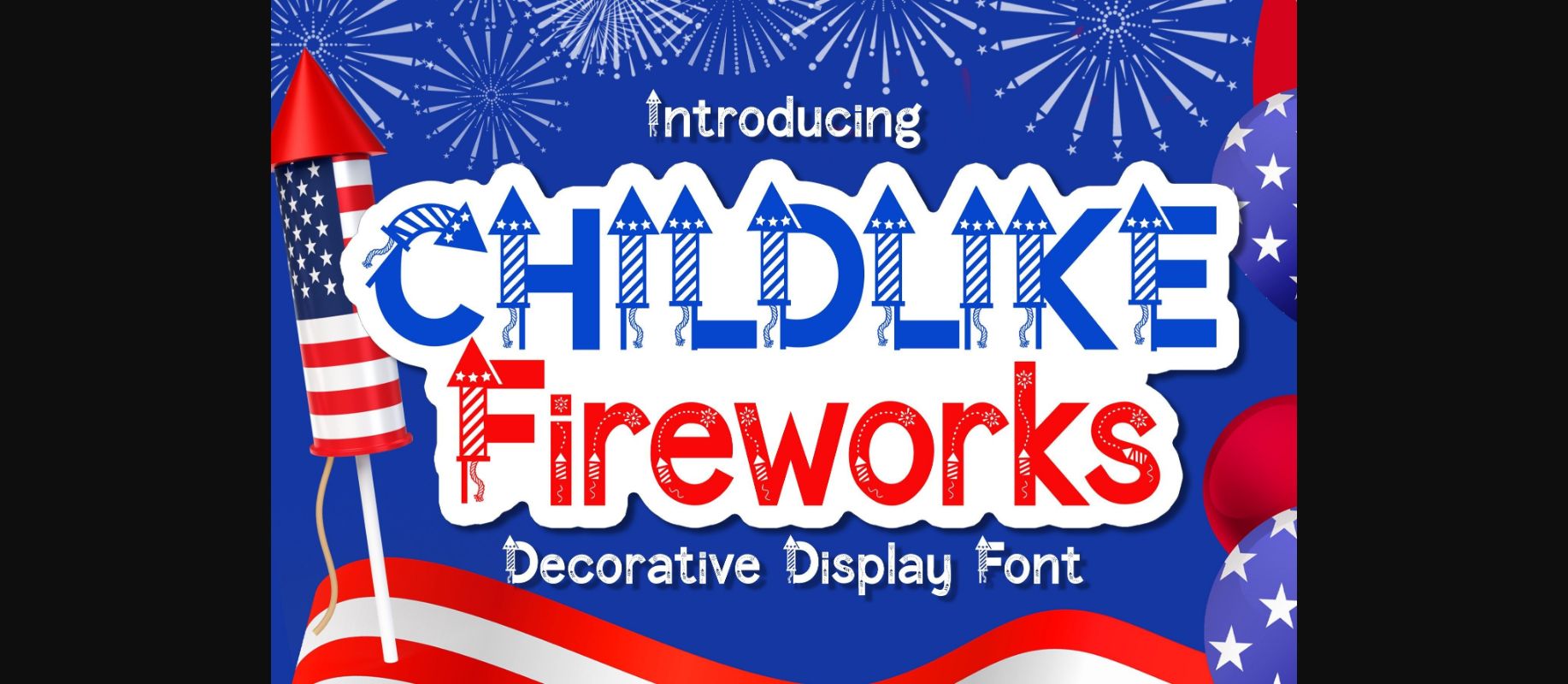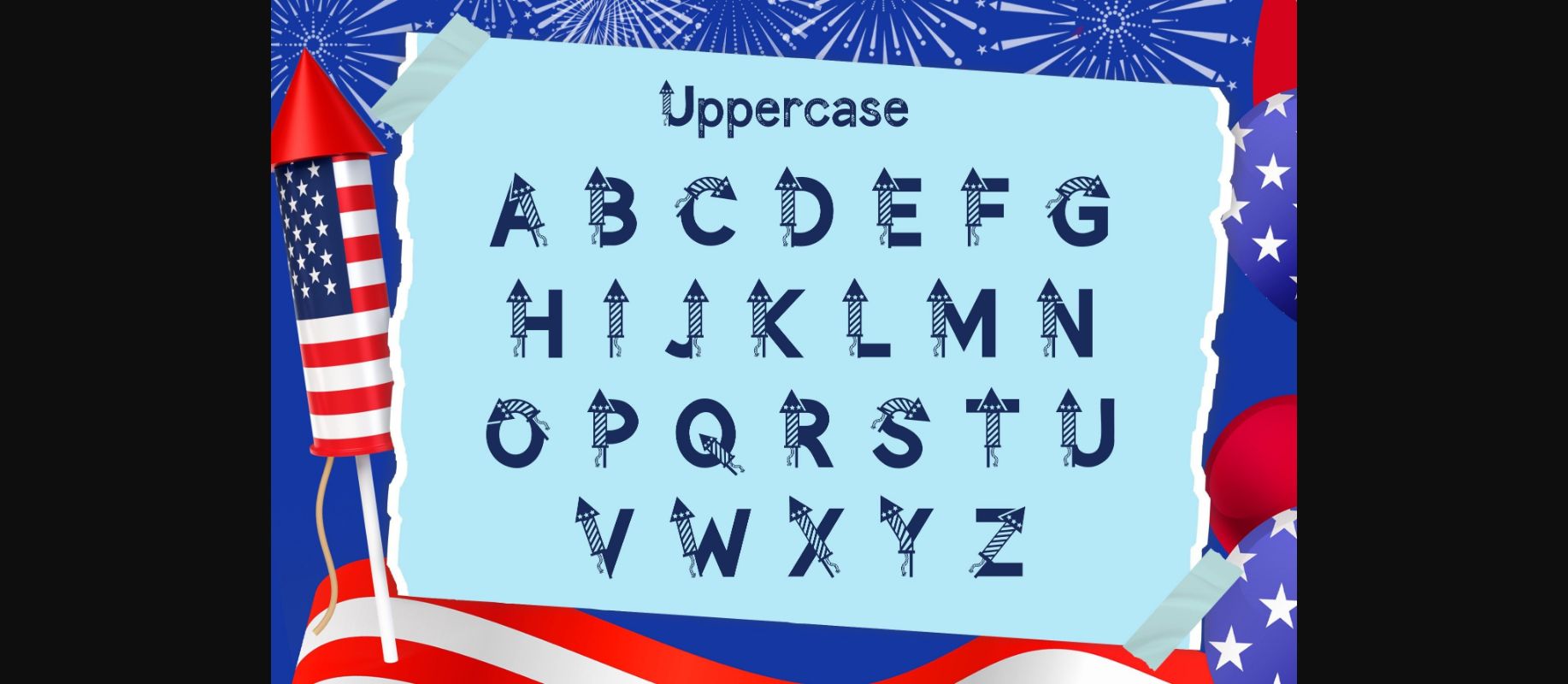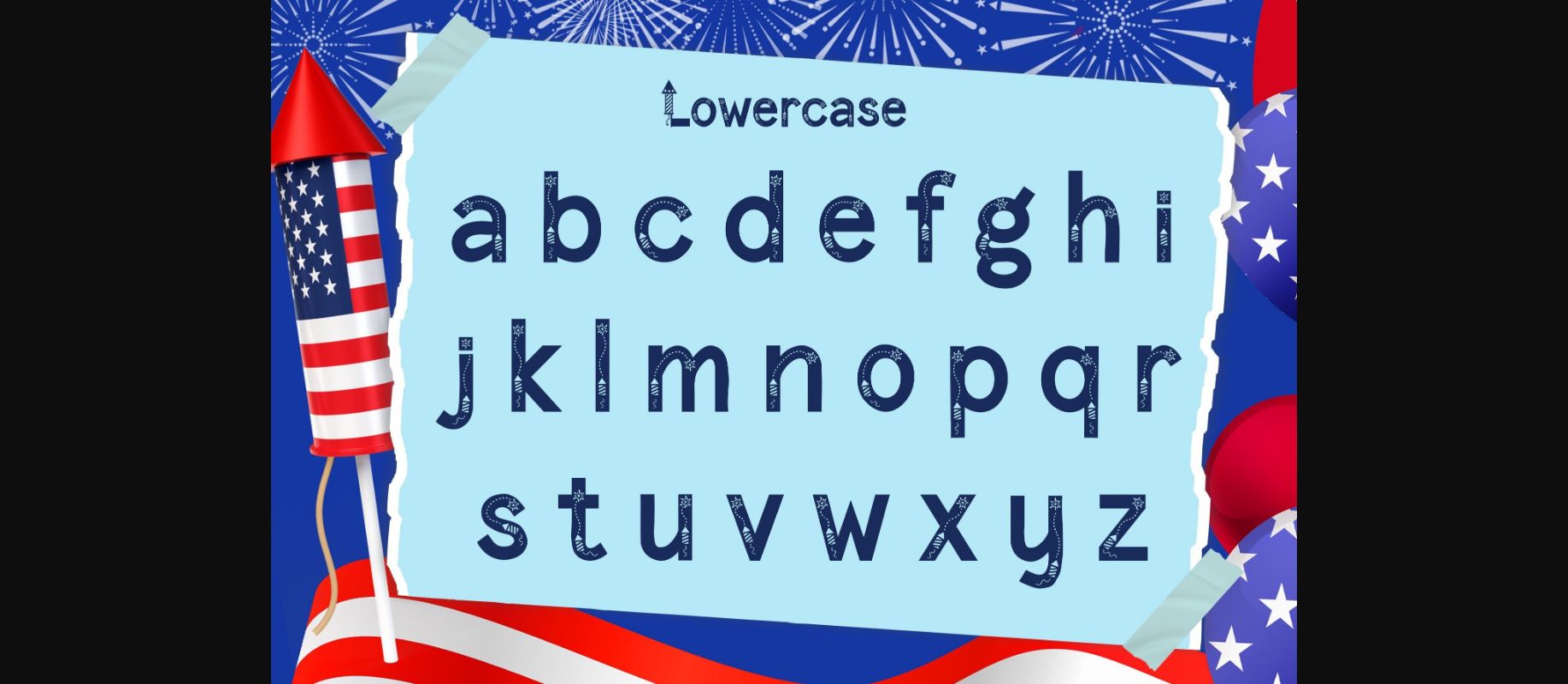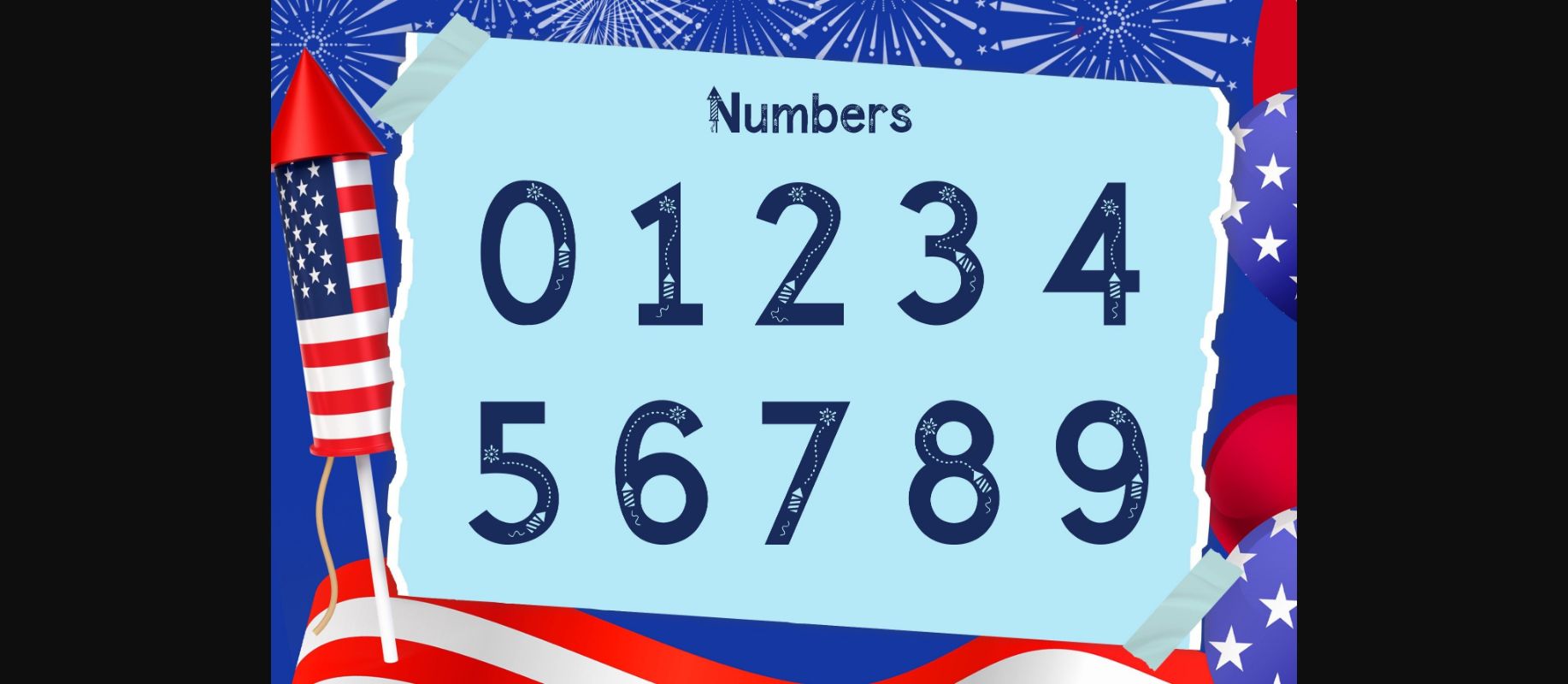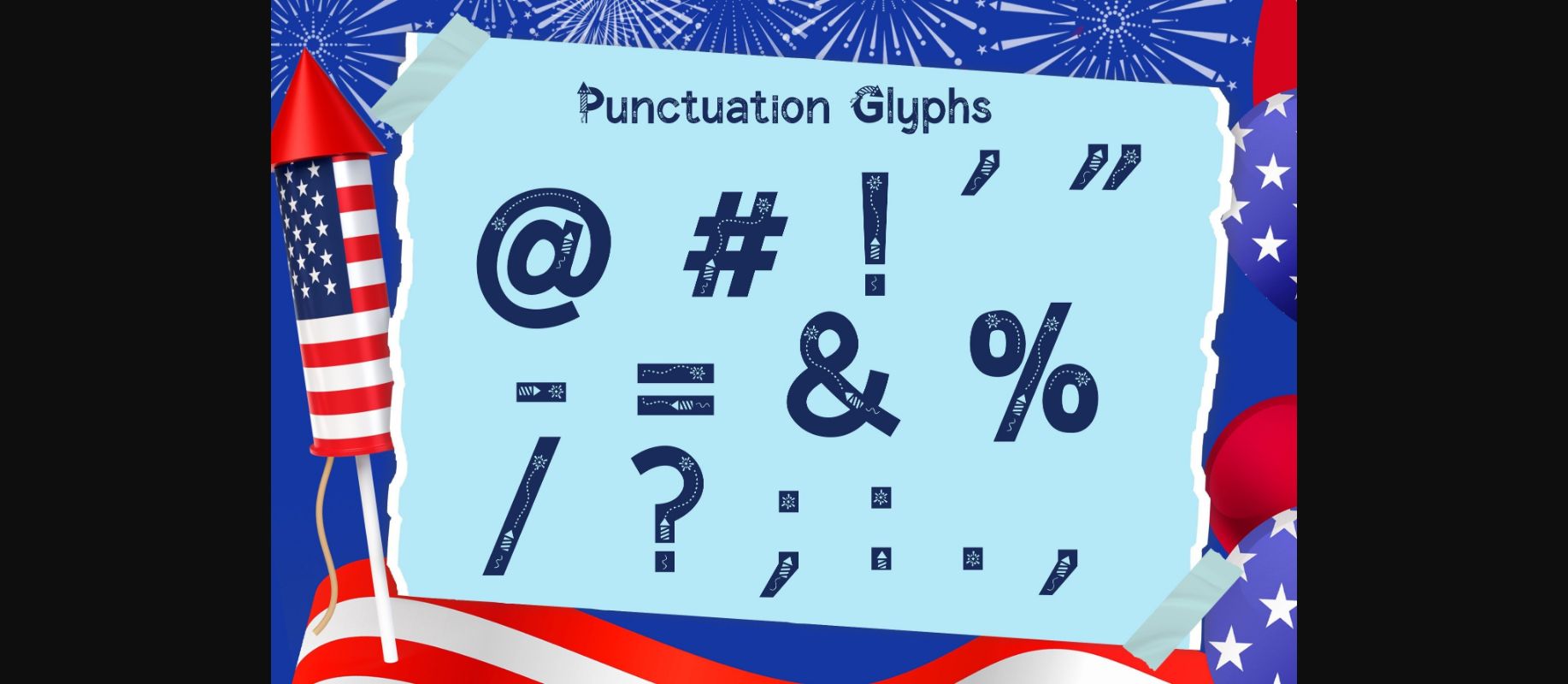
About Childlike Fireworks Font
Childlike Fireworks is a playful and modern decorative display font. Featuring a cool and unique design itβs great for creative projects, branding, headlines, posters, etc.